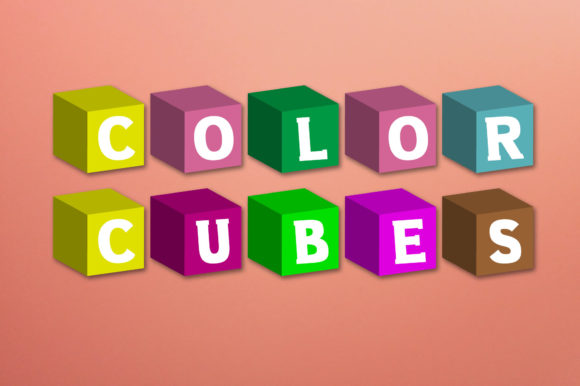
Dive into a world of vibrant colors and playful shapes with Color Cubes Font, a creation by Vladimir Carrer. This charming font family is designed to bring life to your digital creations, transforming any children's project or school assignment into an eye-catching masterpiece.
Color Cubes is a whimsical and captivating color font that will surely spark the imagination of young minds. With its enchanting cartoon-like appearance, this font adds an element of joy and fascination to any text. Let your little ones explore their creativity as they craft colorful stories, design cheerful invitations, or create captivating social media posts with Color Cubes.
Not only is Color Cubes visually stunning, but it's also highly versatile, making it a perfect choice for a wide range of projects. Whether you're creating cheerful posters, vibrant logos, or eye-catching website designs, Color Cubes has the magic to transform your vision into reality. Its playful nature adds a touch of whimsy to any project, capturing the attention of children and adults alike.
But Color Cubes is more than just a pretty face. It's a font that nurtures creativity and encourages self-expression. As your little ones explore the endless possibilities of Color Cubes, they'll find their imagination soaring to new heights. Let them embark on a creative journey where their thoughts dance off the page in a kaleidoscope of colors and shapes.